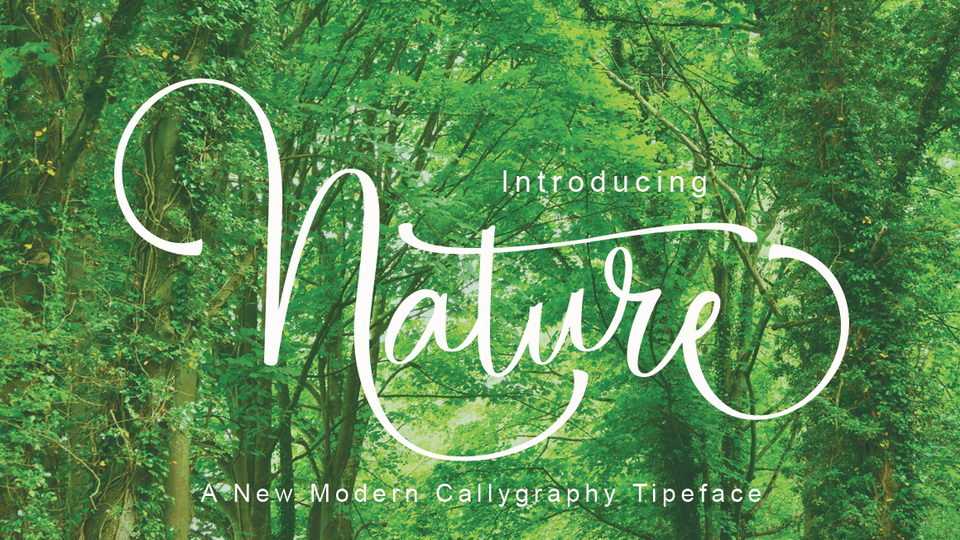
Nature Script Font › Fontesk
Download Nature font, a stylish calligraphy script that have a varied base line, fine lines, classic and elegant touches. Nature Script font can be used for various purposes, such as title, signature, logo, wedding invitation, t-shirt, letterhead, nameplate, label, news, poster, badge etc.